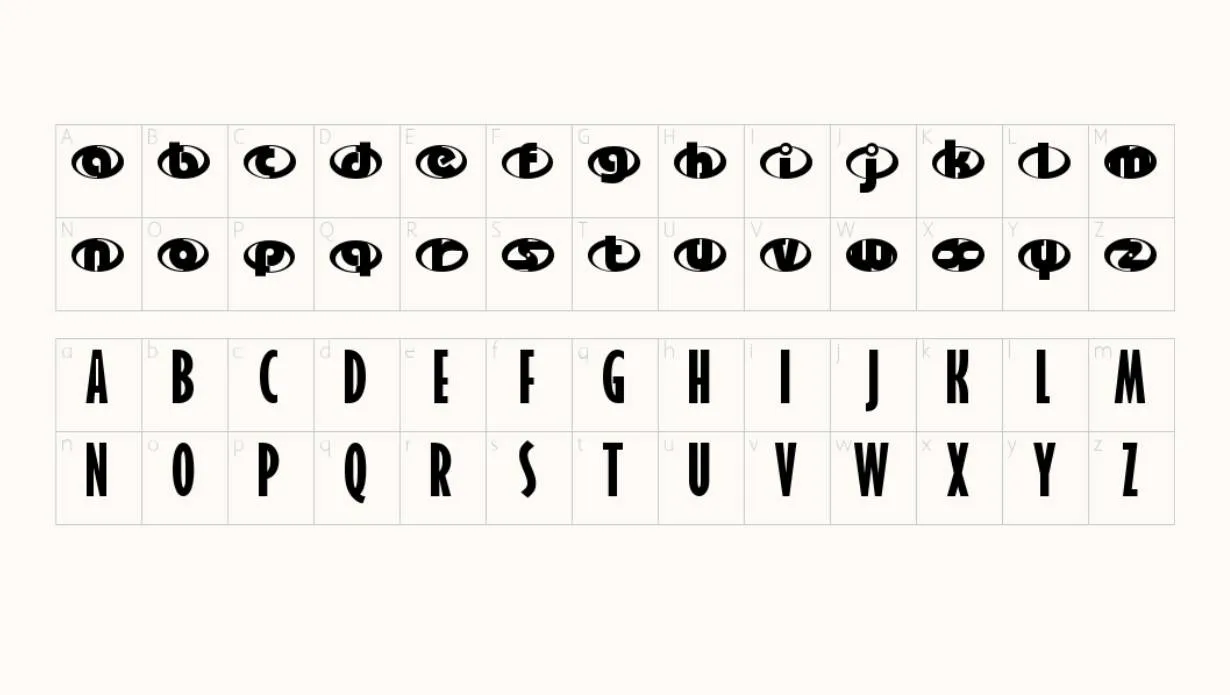
Incredibles font takes on the mantle of the font superhero, ready to add a bold and dynamic touch to your words. With its energetic presence, it becomes the perfect choice for projects needing a sense of action, superhero-themed designs, and conveying a dynamic and powerful message.
Incredibles transforms your text into a visual superhero, leaping off the page with vigor and impact.